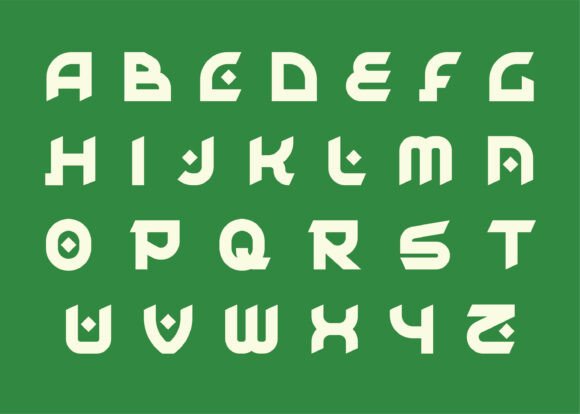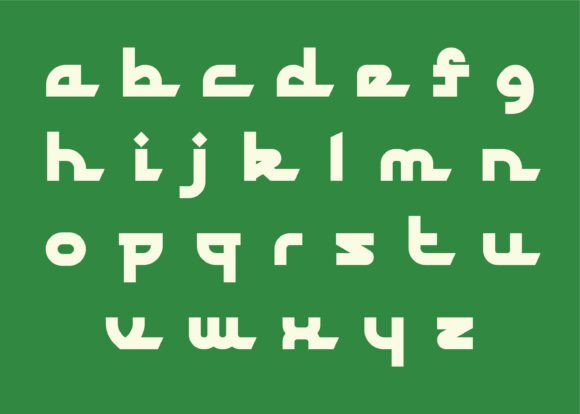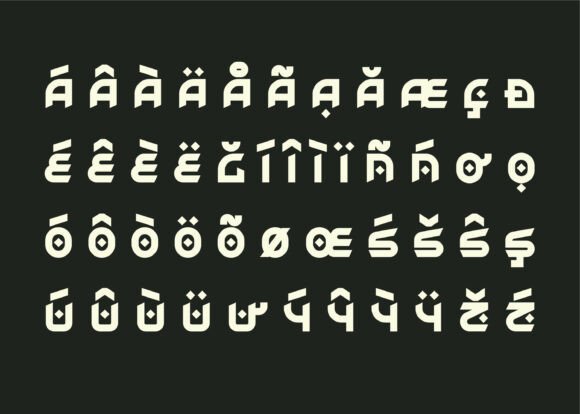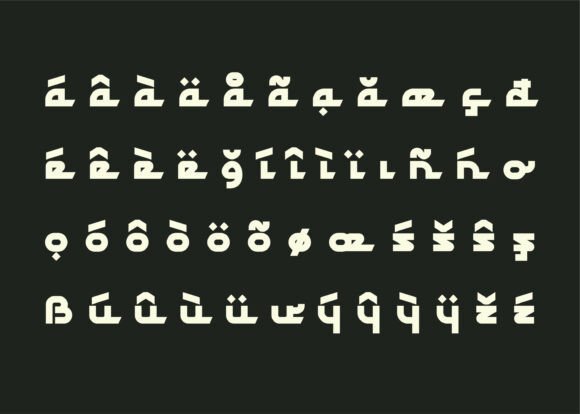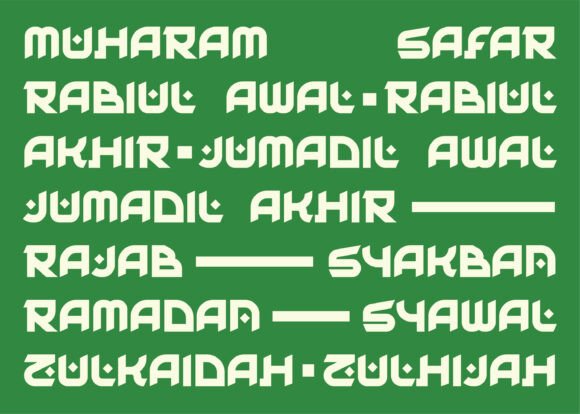
Introduction to Hilalian Font
An Arabic-inspired display font that seamlessly blends cultural heritage with contemporary minimalism.
Its rhythmic weight and bold presence make it an exceptional choice for luxury branding, spiritual or cultural event posters, and high-end editorial designs that require a sophisticated, worldly character .
Key Features of Hilalian Font